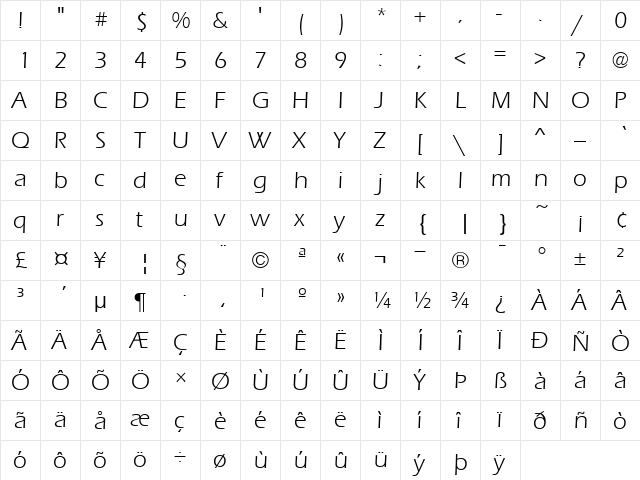
PT Plain Jane Normal
Design Context for PT Plain Jane Typeface
PT Plain Jane offers clean, dependable letterforms without strong stylistic allegiance, making it a practical choice for designers who need flexibility.